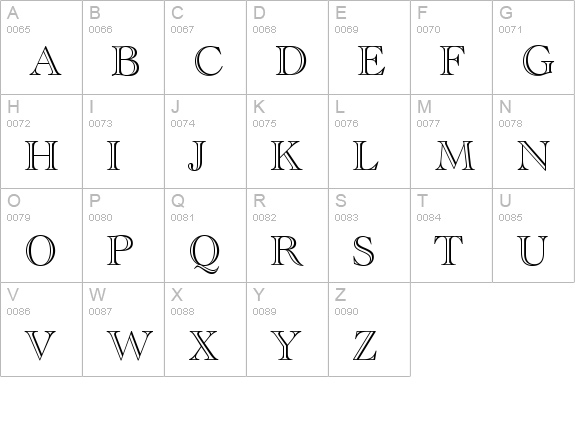
Tiberius font is a stunningly elegant typeface with a timeless appeal. Its refined and sophisticated letterforms exude an air of confidence and class, making it the perfect choice for any design project that calls for a touch of elegance. With its graceful curves and balanced proportions, Tiberius font adds a touch of sophistication to any text. Whether it's used for a wedding invitation, a luxury brand logo, or a prestigious magazine layout, this font effortlessly elevates the visual impact of any design. What makes Tiberius font even more remarkable is that it is available for free. Yes, you heard that right! This exquisite font can be freely downloaded and used for both personal and commercial projects. You can easily access and download Tiberius font at FontsMarket.com, a trusted source for high-quality fonts. So go ahead and unleash your creativity with Tiberius font. Whether you're a professional designer or a DIY enthusiast, this font will undoubtedly take your designs to new heights. With its free availability and unparalleled beauty, Tiberius font is a must-have in every designer's toolkit. Don't miss out on this opportunity to add a touch of elegance to your next project.